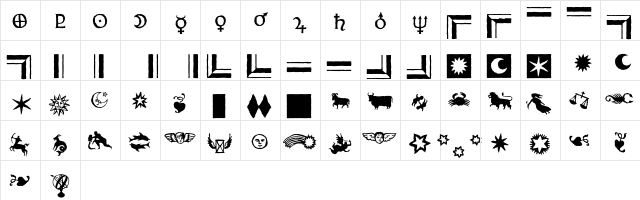
Celestia Antiqua Ornaments
Design Context for Celestia Antiqua Typeface
Celestia Antiqua brings ornamental detail and strong personality to headlines and identities, where visual impact matters more than quiet functionality.
Font Pairing: Pair with a clean neutral sans-serif for body copy to let Celestia Antiqua's character lead without overwhelming the composition.
Pro Tip: Use Celestia Antiqua exclusively at display sizes — it was designed to be seen, not read at length. Let a neutral companion handle body copy.